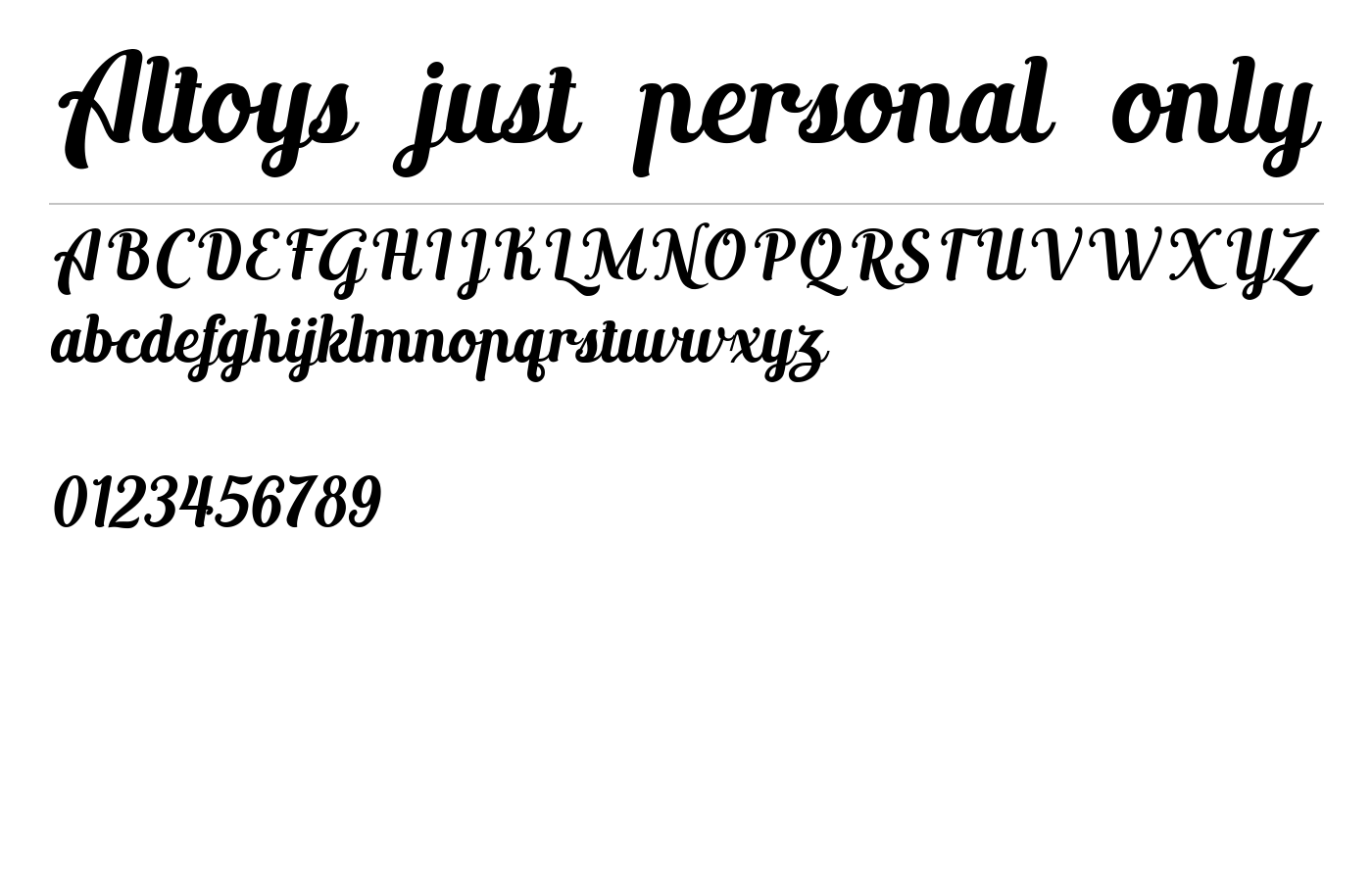
Altoys just personal only is a charming script font with a smooth, flowing style and bold weight that captures a friendly yet elegant tone. Its distinct letterforms, including single-story ‘a’ and rounded strokes with moderate contrast, make it well-suited for personal projects, invitations, and branding that seeks a warm, approachable feel. This font shines in headlines and decorative uses where a creative, handwritten touch is desired.
Altoys just personal only Font
About Altoys just personal only Font
| Font family | Altoys just personal only Font |
| Designer | Alit Suarnegara |